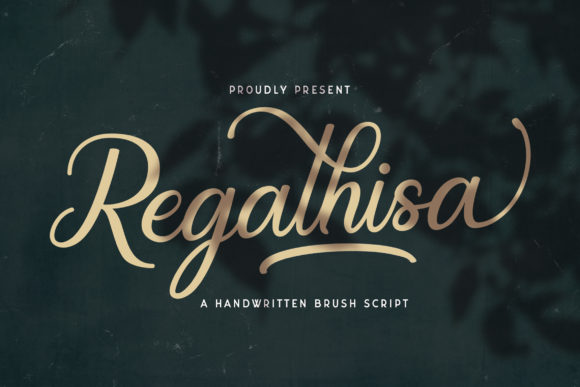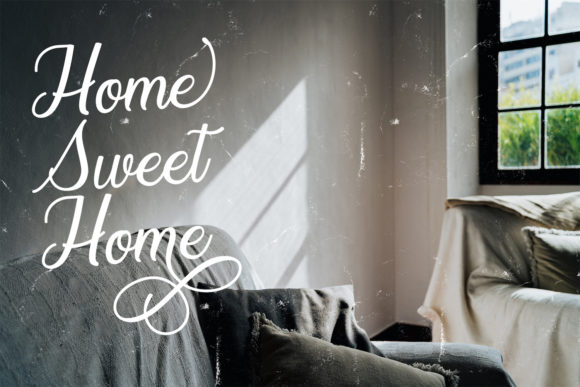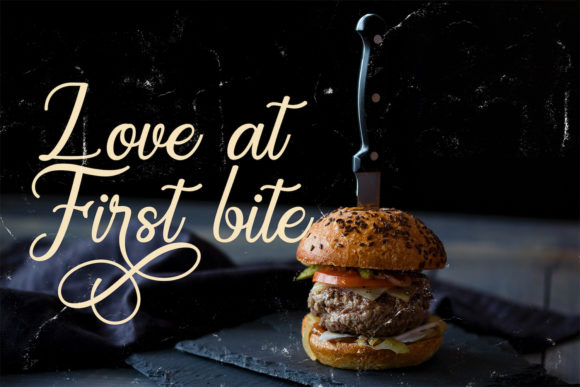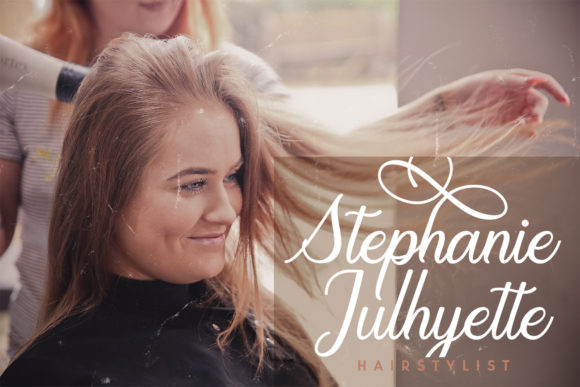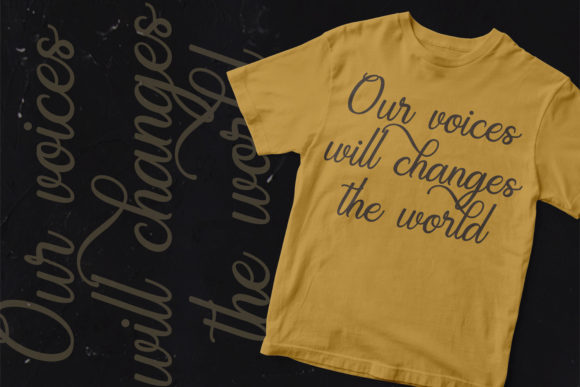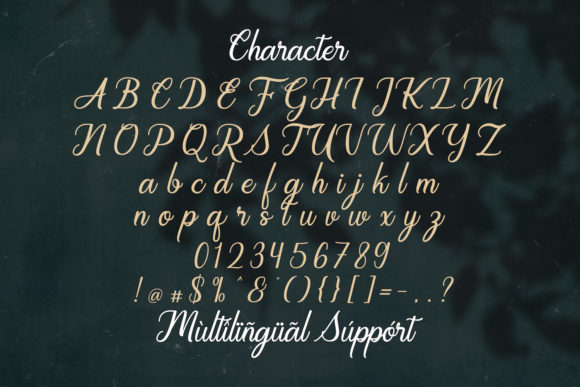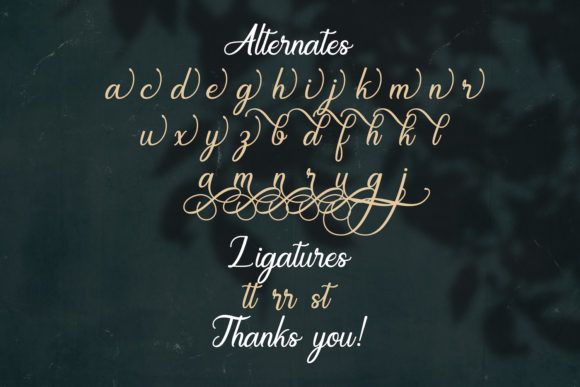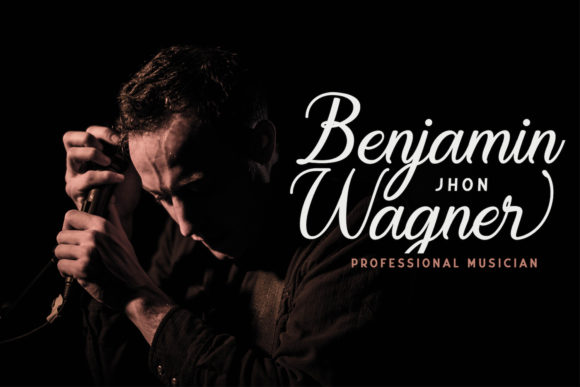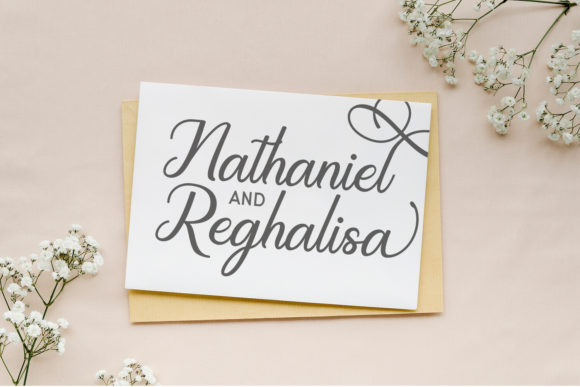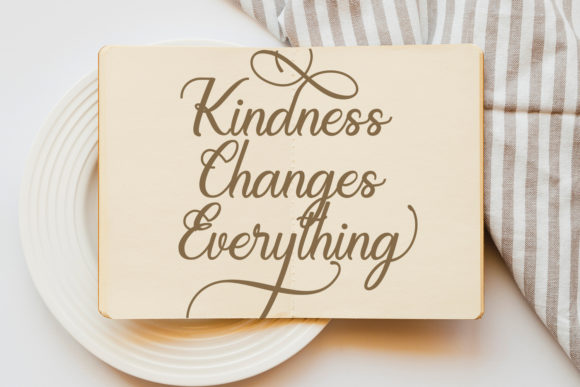
Regalhisa Font
About Regalhisa Font
Regalhisa is a cute and casual handwritten font with an incredibly friendly feel. It features gorgeous swashes and ligatures that make this script incredibly versatile. This versatility will appeal to a wide range of crafty ideas, from letterheads and titles, to stationery.